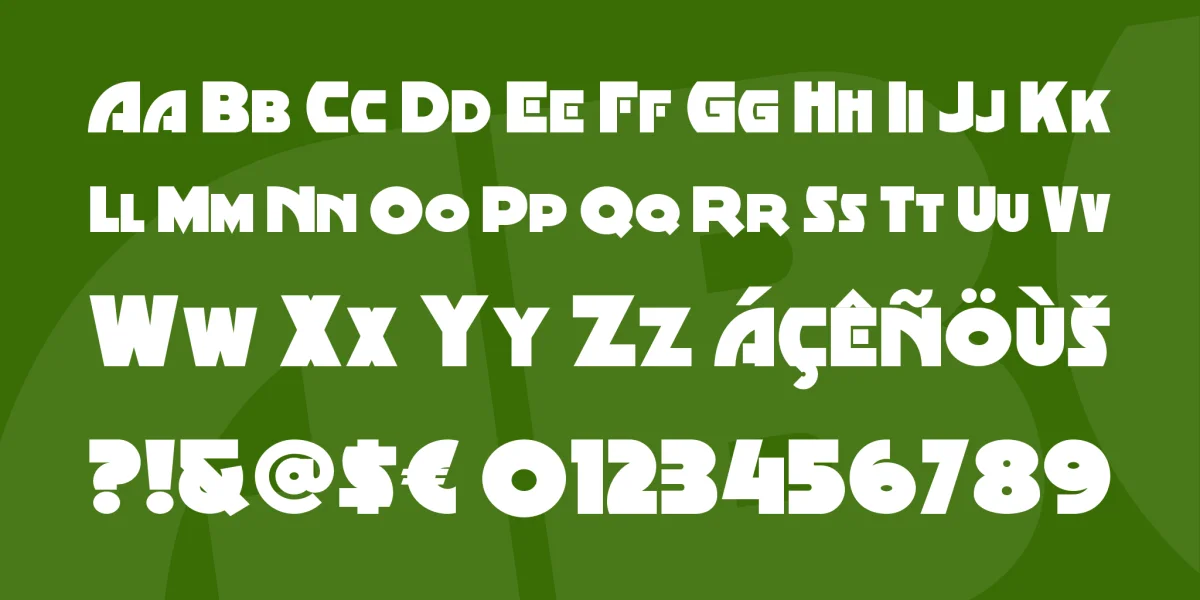
Here’s another big, brash, in-your-face kind of face, this one based on a font presented by William Hugh Gordon in his 1931 book, Lettering for Commercial Purposes. Ultrabold, ultracool, even after seventy-plus years.